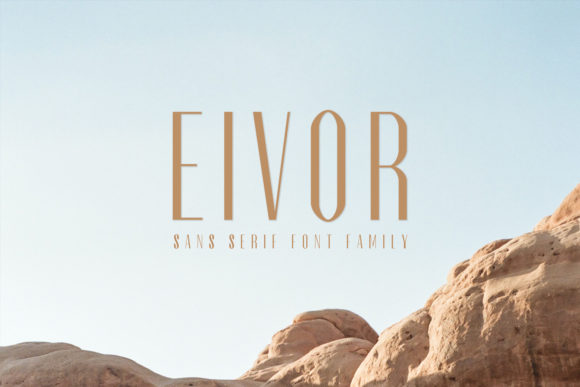
In a world clamoring for distinction, let Eivor Font be your beacon of uniqueness. This exquisite sans serif treasure, brought to life by the visionary artisans at Creative Tacos, is more than just a font; it's a gateway to a world of design possibilities. Eivor's meticulously crafted characters exude sophistication and timelessness, making it the perfect choice for those seeking a touch of timeless elegance in their designs.
Whether you're a seasoned design virtuoso or just starting your creative journey, Eivor Font is your perfect companion. Its neat and simple style make it incredibly versatile, lending its charm to a kaleidoscope of design projects. Need a captivating logo that leaves a lasting impression? Eivor's got you covered. Dreaming of eye-catching social media graphics that demand attention? Eivor's your secret weapon. From elegant wedding invitations to sleek business cards, Eivor seamlessly molds itself to your vision, adding an air of sophistication that's sure to turn heads.
But Eivor's allure extends beyond its aesthetic prowess. This remarkable font is effortless to use, ensuring a smooth and enjoyable design experience. Let your creativity flow without hindrance as Eivor becomes an extension of your artistic expression. Say goodbye to the frustration of uncooperative fonts and embrace the joy of seamless design.
So, why settle for ordinary when you can possess the extraordinary? Embark on a design adventure like no other with Eivor Font. Experience the thrill of creating designs that captivate and inspire, leaving an indelible mark on the world. Make Eivor your font of choice and unleash the boundless potential within you.